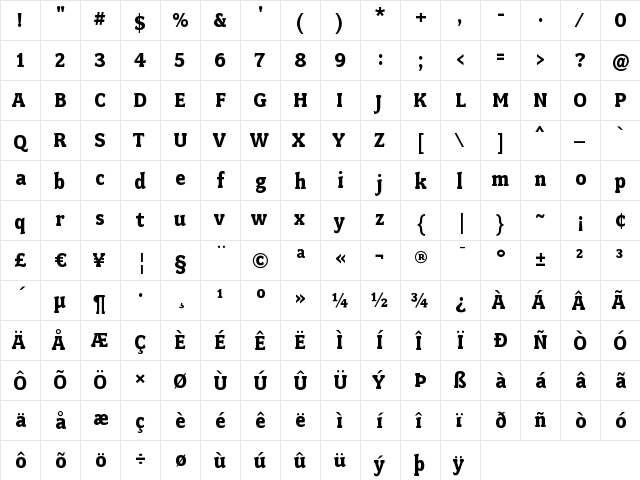
FairplexNarrowBold Regular Font Preview
| Designer | Zuzana Licko |
Design Context for FairplexNarrowBold Typeface
FairplexNarrowBold takes a measured approach to typography — its balanced proportions and neutral character make it a reliable workhorse for both digital and print work. The heavy weight commands attention and anchors typographic hierarchies. Its narrow stance lets it pack a punch even in space-constrained designs.